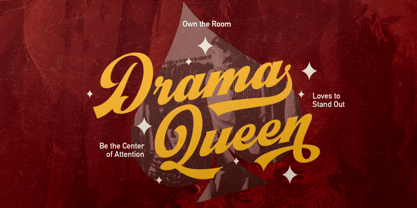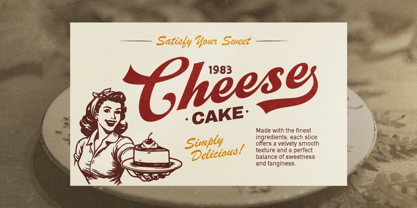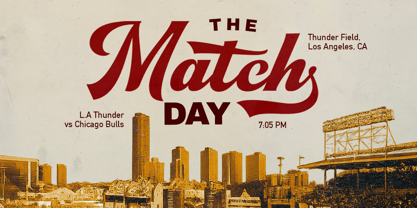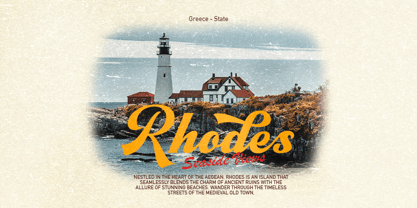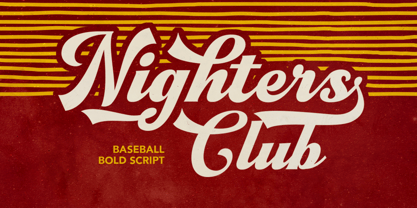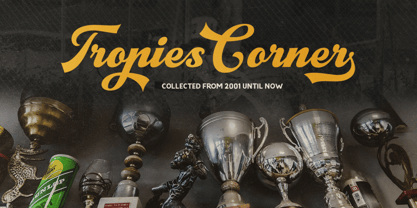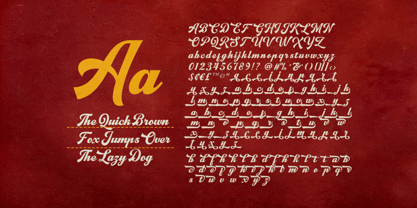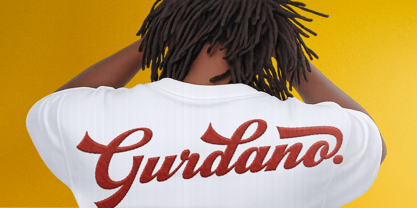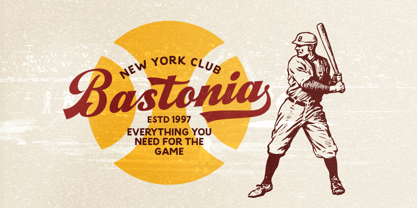
Nighters Club
A família de fontes Nighters Club foi desenhada por Dzikrul Aulia e publicada pela Bale Type. Nighters Club contém 1 estilos. Saiba mais sobre esta família
Nighters Club is a retro-inspired bold script font packed with a wide range of stylish alternates to enhance your creative projects. Its versatile and expressive design makes it suitable for various purposes, including branding, logotypes, quotes, and eye-catching headlines. It works especially well for sports-themed designs, such as baseball logos, where a vintage yet dynamic feel is essential. With its stunning alternate characters, Nighters Club allows you to customize and elevate your typography, helping your designs stand out with a unique and polished look. Additionally, it offers multilingual support, making it a practical choice for global use across different languages and audiences.